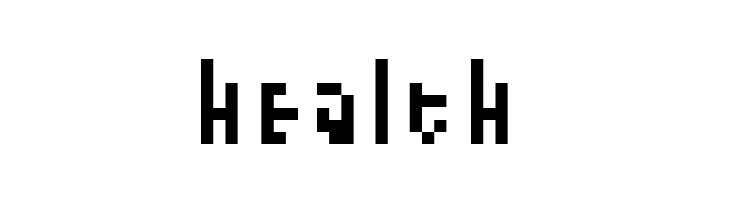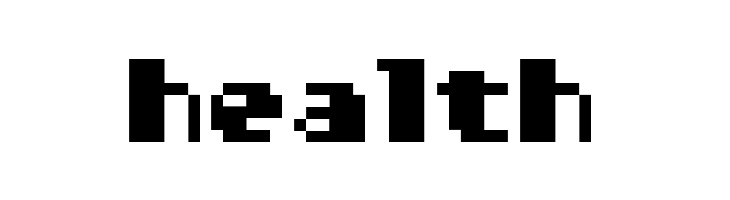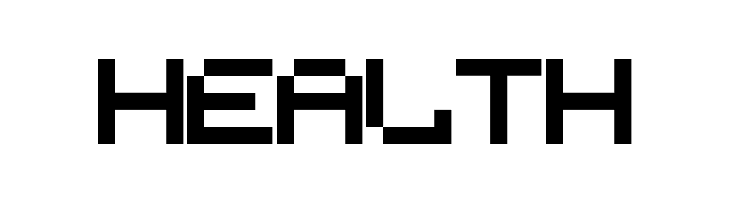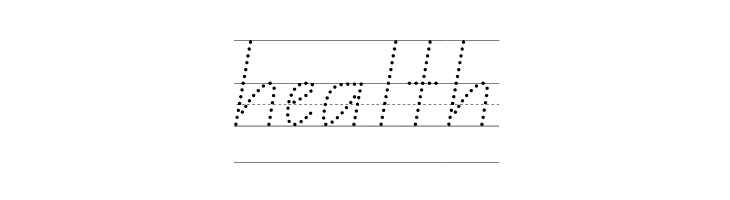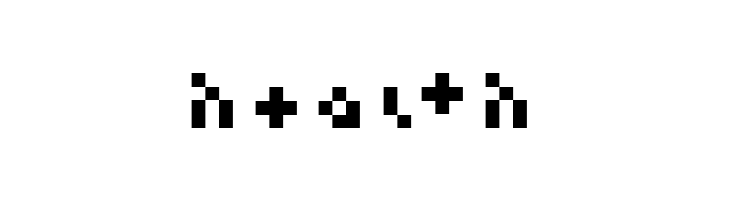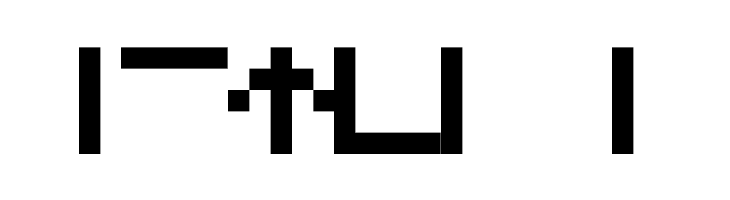
A pixelated, retro-style font inspired by early digital displays.
A bold, pixelated typeface with a retro digital aesthetic.
A pixelated, retro-style font inspired by early digital displays.
A pixelated, retro-style font with a blocky, geometric design.
A dotted educational font for teaching handwriting.
A pixelated, blocky font with a retro digital aesthetic.
A pixelated, retro-style font inspired by early digital graphics.